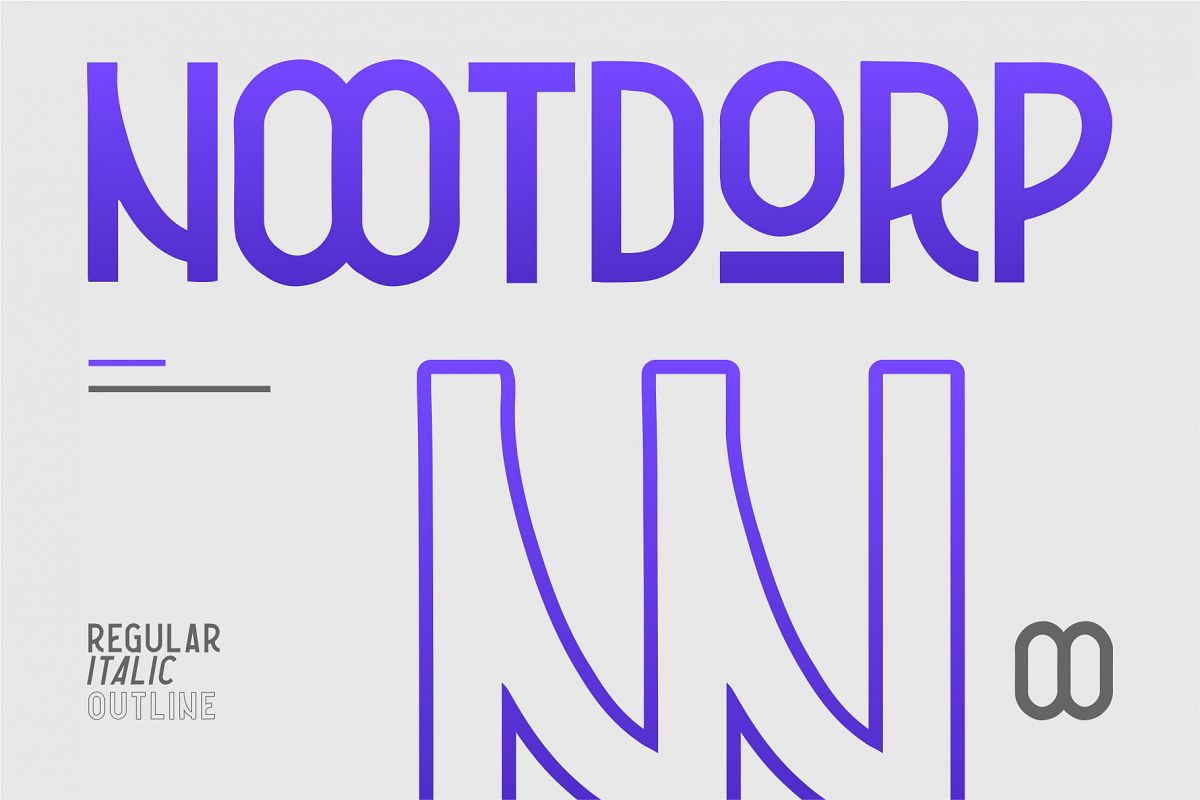
NOOTDORP
Welcome to NOOTDORP - Sans Serif
Inspired from modern sans and powerfull typeface is born Nootdorp. The name from one place on Germany: Nootdorp. This font very versatile for branding, label, packaging, logotype, website, header, headline, magazine, and many more the great work. Included on Nootdorp with 3 style: Regular, Italic, and Outline. So, very good for pairing the fonts!What's feature and addvantages?
• Opentype Ligature
• 23 Language Support: Afrikaans Albanian Catalan Croatian Czech Danish Dutch English Estonian Finnish French German Hungarian Icelandic Italian Norwegian Polish Portugese Slovak Slovenian Spanisch Swedish Zulu